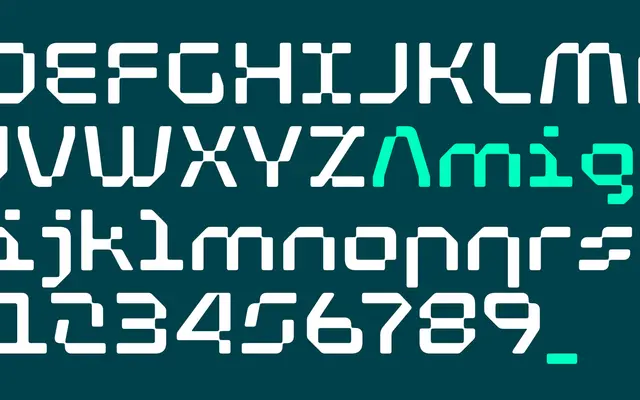
At Amiga
A pixel-inspired display family by Pedro Arilla, offering one plain style and nine sci-fi colour font variants as a tribute to early computing and Wim Crouwel's New Alphabet.
Built on the geometry of early computer and video game type, the family smooths the hard edges of bitmap lettering into something more refined while keeping its retro character. Nine colour fonts sit alongside the plain style, each named after a sci-fi reference and delivered in both COLR and SVG formats for broad web and desktop support. Visual glitches, sci-fi palettes and geek emoji sets make it a self-contained kit for themed branding or entertainment projects.
A pixel-derived display typeface drawing on early computing and retro video game aesthetics, with smooth geometric construction rather than hard raster edges. The colour font variants and sci-fi theming place it firmly in the display category.